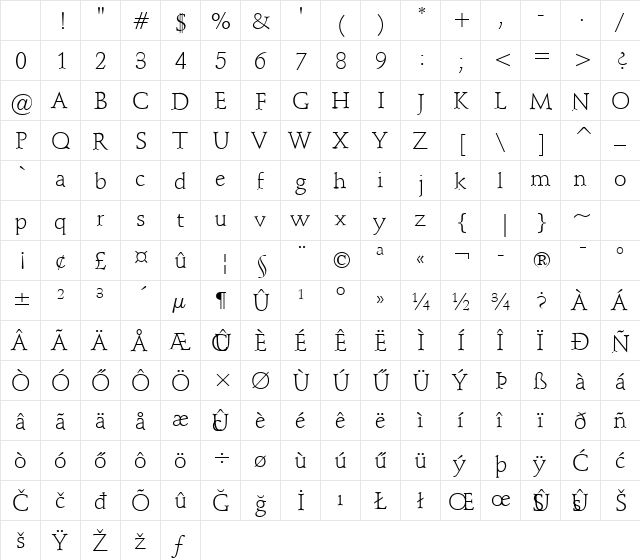
LOR-Schneidler Lt is a composed and adaptable typeface that performs quietly and consistently across a wide range of design contexts. Its slender proportions lend an understated elegance to any composition.